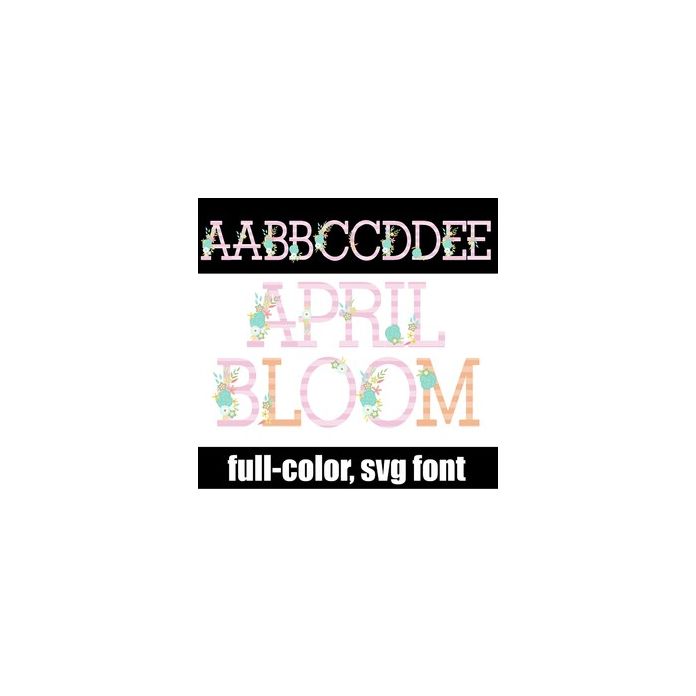
This full-color font features striped serif lettering and pretty spring flowers. There is an alt case w/ additional colors you can access through your system or Silhouette's glyph map.